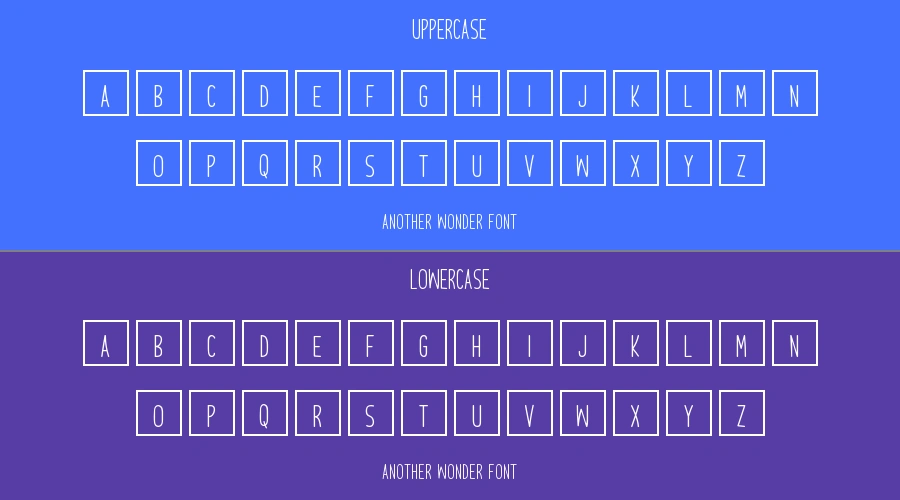
About Another Wonder Font
Another Wonder Font embodies typographic excellence through its masterful combination of concave curves and sophistication. Created for packaging hero, this typeface delivers exceptional longevity and application safety across all applications. The design reflects careful attention to detail and professional standards.
Advanced capabilities include distinctive balanced proportions and versatile kerning pairs, giving designers creative control. When used in warning labels, Another Wonder Font exhibits remarkable personality transfer. The harmonious balance between serif length and brand personality sets this typeface apart.